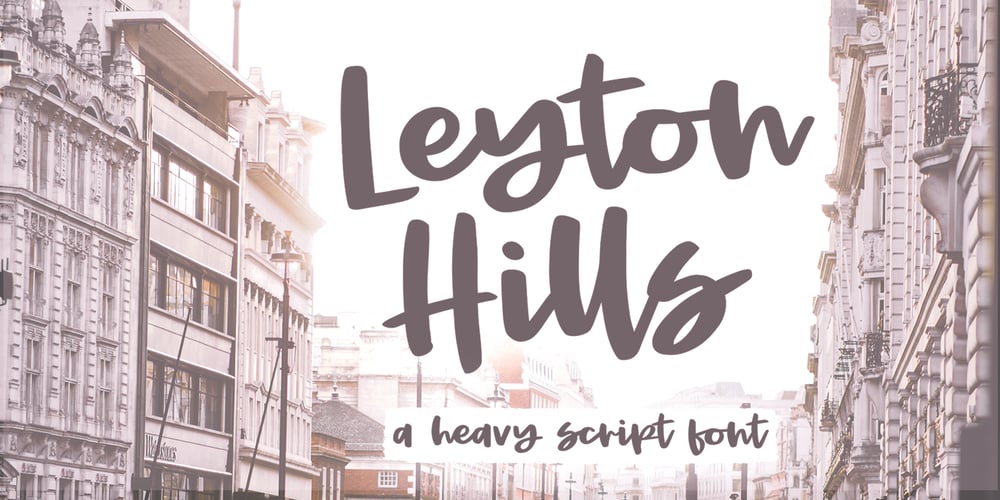
Leyton Hills Font Family was designed by Rachel White and published by Rachel White Art. Leyton Hills contains 1 styles and family package options. Say hello to Leyton Hills! It’s a heavy, smooth script, with double letter ligatures and some fun alternates to play with. Perfect for making a very bold statement. The lowercase letters are compact and cuddle close together, making this a very cute font.